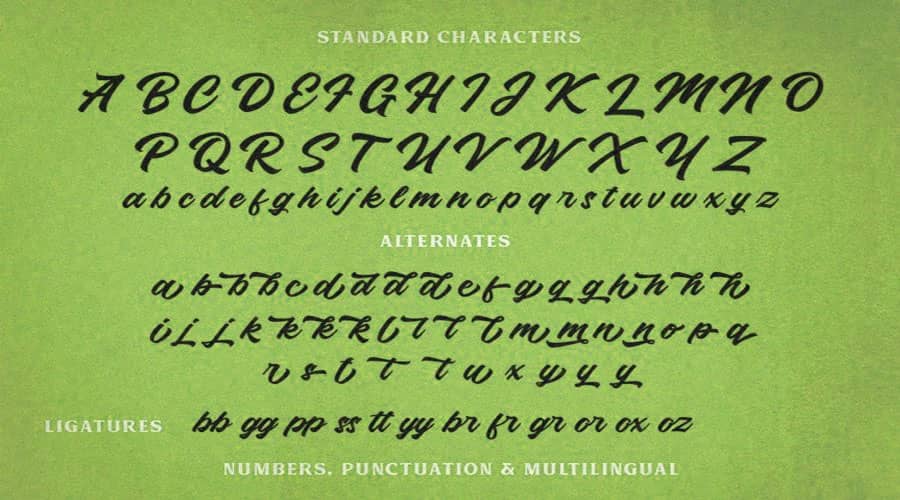
Roland Typeface
Roland is a new typeface; Iklaz Studio created it and shared it. It is a calligraphy and script typeface.
Roland Typeface is a handcrafted monoline script from the 1950s. It should add to your font collection immediately away. Roland is a script typeface based on my hand lettering style with a retro or vintage feel. In this day and age, Roland Font is a one-of-a-kind content textual style family. Roland Font is available in two versions: regular and robust. Each technique contains approximately 400 characters, including letter sets, numerals, and accentuation marks. This lovely textual style features a beautiful letter-and-number sequence.
This Font is great for logotypes, branding, packaging, posters, merchandising, labels, and other creative projects. RolandTypeface includes regular character, numeric, and punctuation, as well as a stylistic set, alternatives, and ligatures that allow you to personalize your designs. the font is also good for all bold works.
| Name | Roland Typeface |
| Style | Script, Calligraphy |
| Designer | Iklaz Studio |